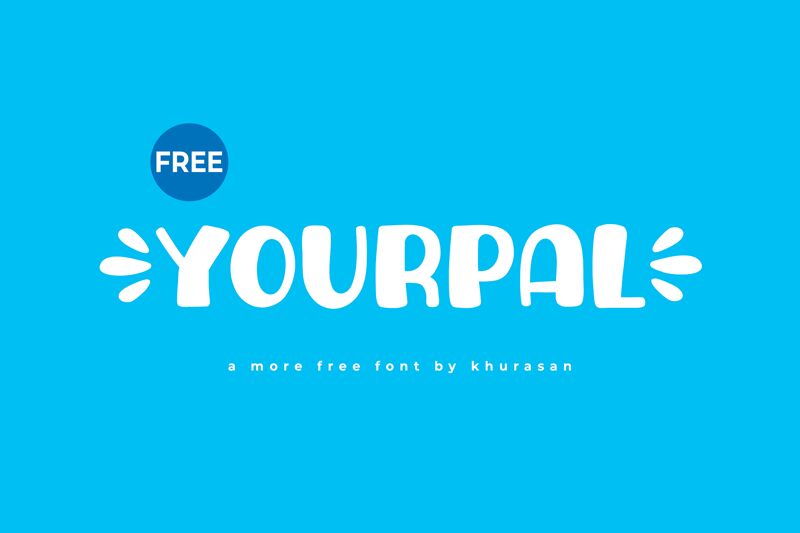
Yourpal font family by Khurasan has a cheerful and playful spirit folded within two beautifully designed font styles. This font family has a bit of an informal style which makes it friendly and approachable to be used in your designs. It has a modern feel in how it looks, yet is inspired by pencil designs commonly found in handwritten letters.
Having a cartoon style, Yourpal font is best for designs such as children’s book covers, comic books, stationery items, video game titles, and short motion graphic videos. It can also work well in billboards, banners, shop displays, and websites.